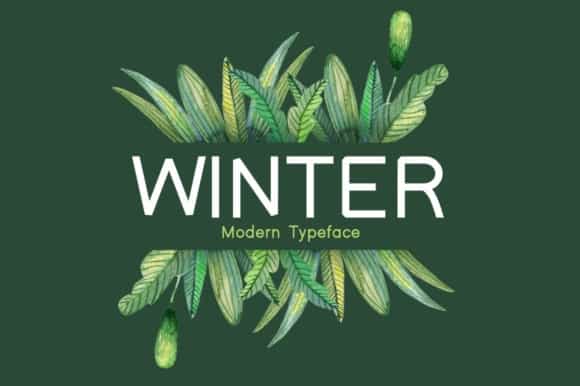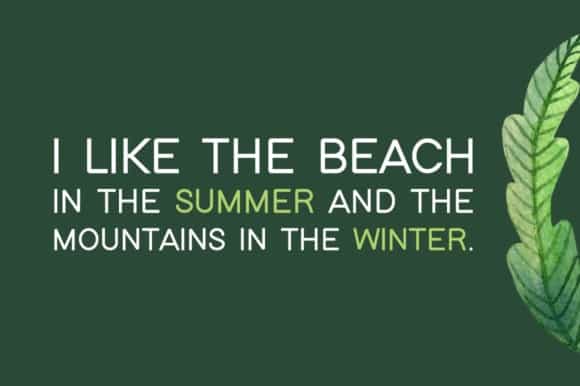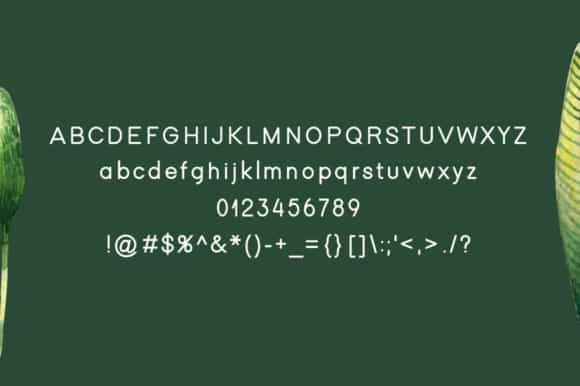
Winter is a new computerized font. It is ideal for logos, stationery, posters, covers, branding , merchandising and so on. Be the first to be amazed by its one of a kind design.